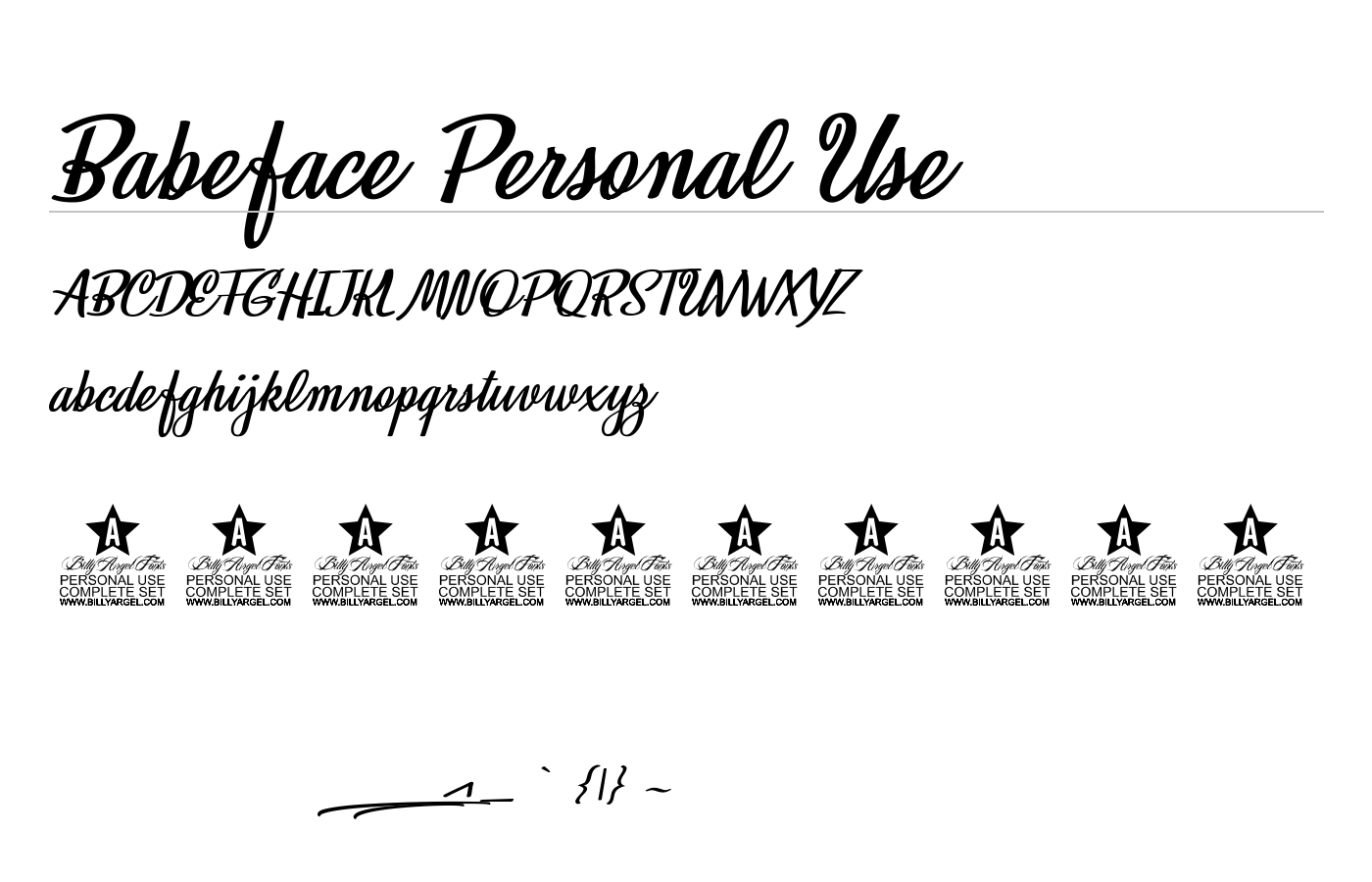
Babeface Personal Use is a graceful script font featuring elegant, smooth strokes with a slightly condensed form that gives it a stylish and refined appearance. Its fluid, connected letterforms exude a warm, inviting personality, making it ideal for personal branding, invitations, and fashion-oriented designs where a touch of sophistication and handwritten charm is desired. This font works beautifully in headlines or logos where a distinctive, classy look is essential.